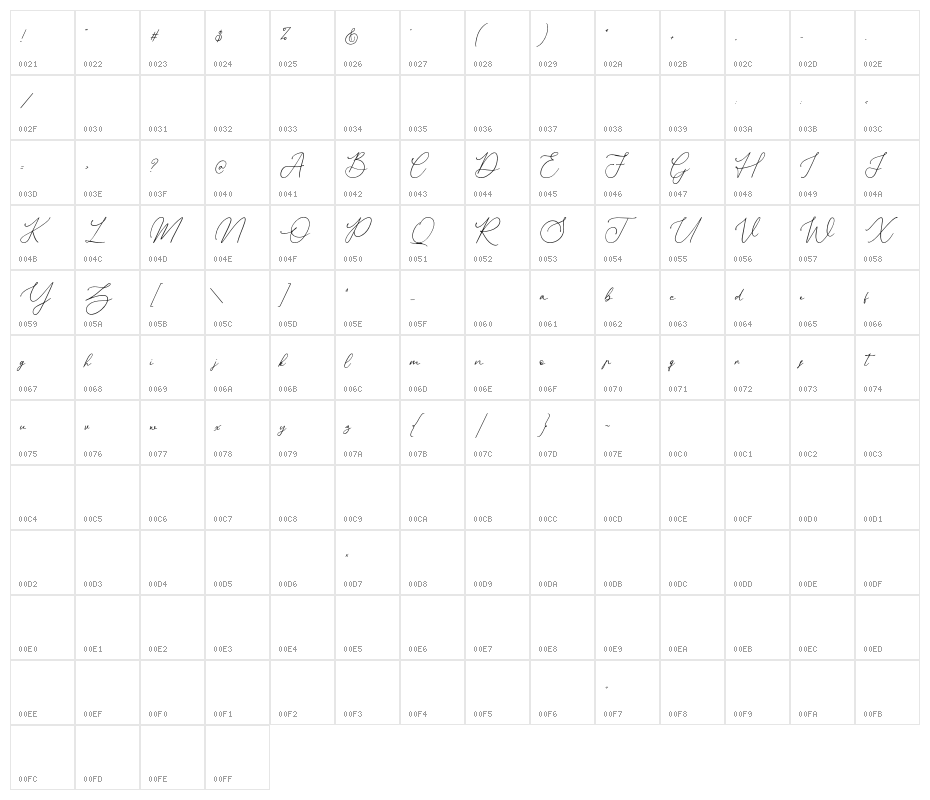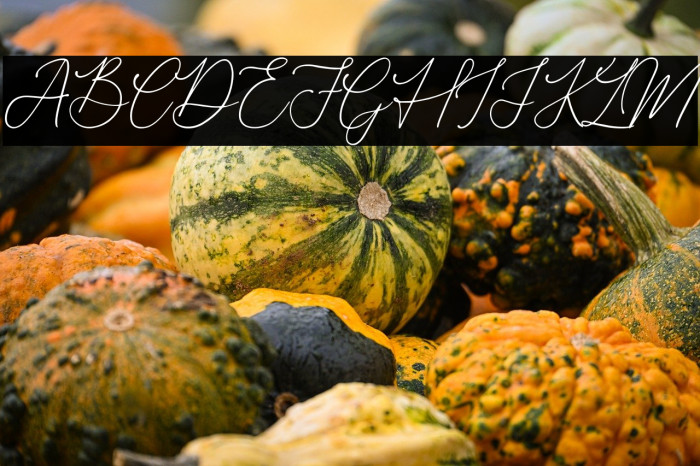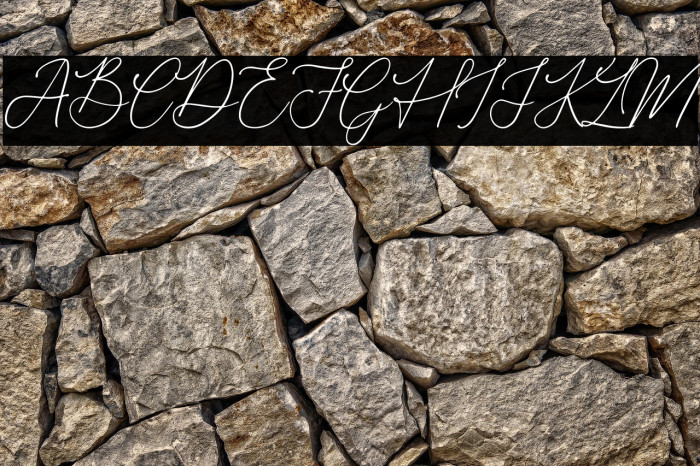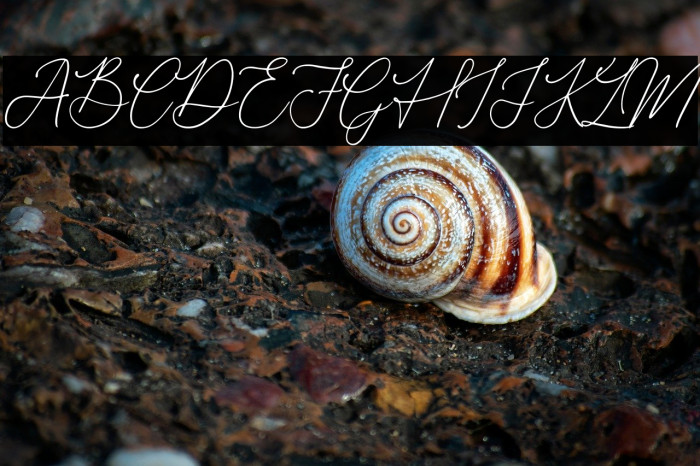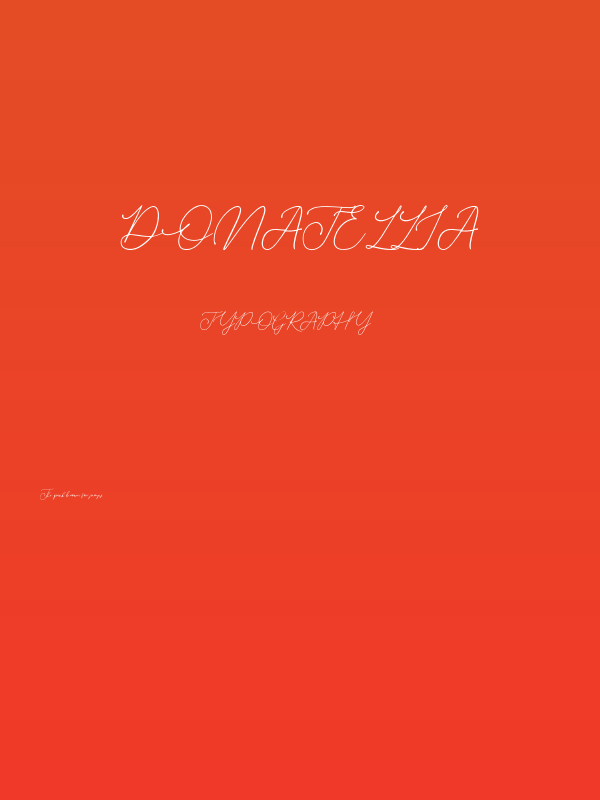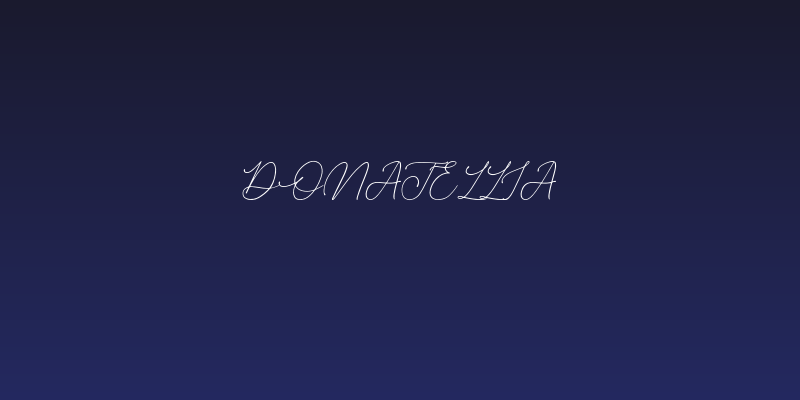
Donatellia Font
Donatellia Description
This elegant script font features flowing, interconnected letters that exude a sense of sophistication and grace. The uppercase letters are ornate, with sweeping curves and loops that create a sense of movement and fluidity. The lowercase letters maintain a consistent style, with delicate strokes and a slightly slanted orientation, enhancing the handwritten feel. The numerals and special characters are designed to match the overall aesthetic, ensuring a cohesive look across all text. This font is perfect for projects that require a touch of elegance and personal flair.
| Overall Style | Elegant, Handwritten |
| Proposed Projects | Ideal for wedding invitations, elegant branding, personal stationery, and decorative quotes. |